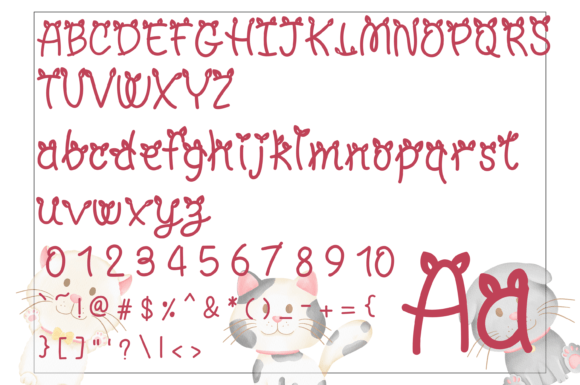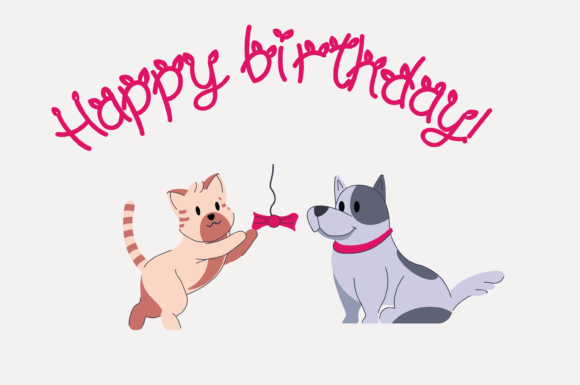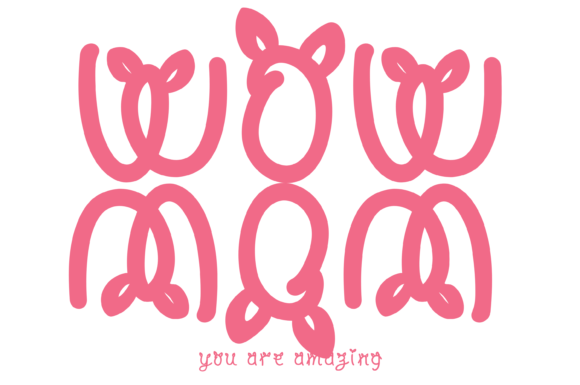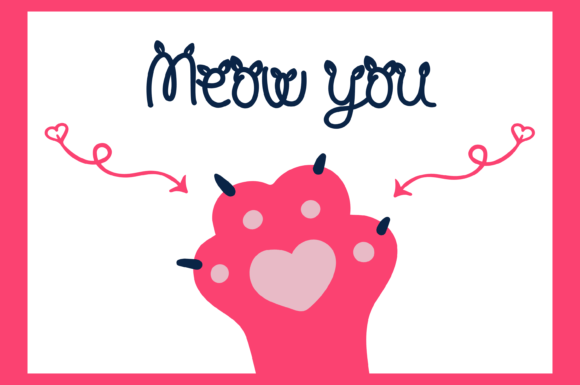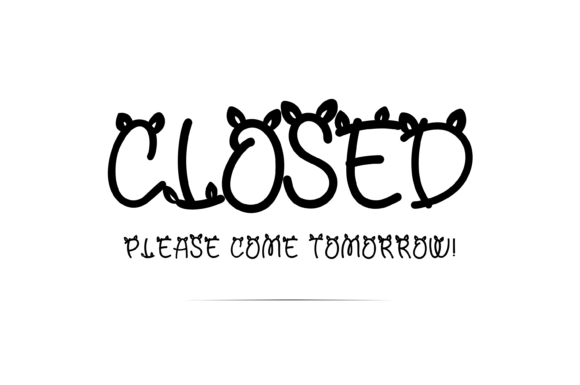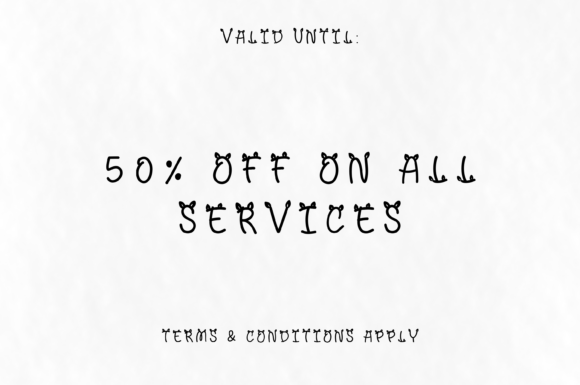
The Purr-fect Font for Your Next Creative Project
You know that moment when a spark of inspiration hits you, and you can’t wait to bring your idea to life? It’s the thrill of creation, and it’s exactly what drives us to keep pushing the boundaries of what’s possible. For designers, finding the right font can be the difference between a great project and an exceptional one.
Enter the Kitten Lovely Font, a whimsical and clean display font that’s sure to add a touch of magic to your next creative endeavor. With its versatility and charm, it can easily be matched to an incredibly large set of projects, from elegant invitations to playful social media graphics. Whether you’re a seasoned pro or just starting out, the Kitten Lovely Font is an invaluable addition to your design toolkit.
Kitten Lovely Font Key Features
- Font Family: Kitten Lovely Font is a unique, cursive script font designed for digital use.
- Unique Characteristics: Features a playful, whimsical feel with swashes, flourishes, and decorative elements, making it ideal for children’s books, greeting cards, and other creative projects.
Kitten Lovely Font Review
I recently had the chance to work with the “Kitten Lovely Font” and I must say, it’s a cute and playful addition to any design project ✨. The font is highly customizable, allowing users to adjust the size, color, and style to fit their needs. The font’s quirky and whimsical feel is perfect for designs targeting a younger audience, such as children’s books, nursery decor, or social media graphics.
One of the standout features of the “Kitten Lovely Font” is its versatility. It can be used for a wide range of design applications, from headings to body text, and even for creating custom graphics and illustrations ✨. The font is also highly legible, making it easy to read even at smaller font sizes.
- ⚠️ Limited font sizes: While the font is highly customizable, it may not be suitable for very large or very small font sizes, which can affect its legibility.
Overall, I think the “Kitten Lovely Font” is a great addition to any designer’s toolkit. While it may have some limitations, its versatility, customizability, and cute, playful feel make it a great choice for a wide range of design projects ✨.
To get the most out of Kitten Lovely Font, use it in conjunction with playful graphics and illustrations. It’s perfect for designing children’s products, party invitations, and other whimsical materials.
Kitten Lovely Font is ideal for:
- Children’s product design
- Whimsical greeting cards
- Fun and playful social media graphics